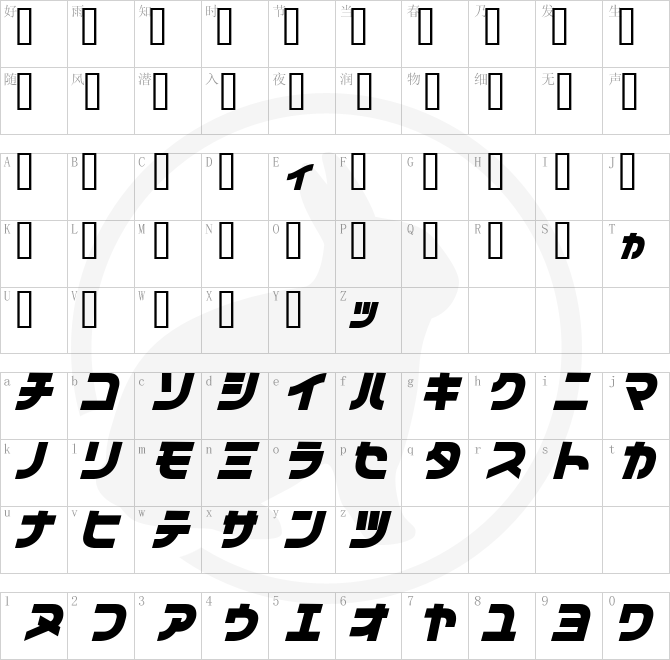
- Font Name:I2Vifam
- Subfamily:Macromedia Fonographer 4.1J I2Vifam
- Full Name:I2Vifam
- PostScript:I2Vifam
I2Vifam.ttf is a very beautiful artistic font, I2Vifam.ttf is widely used in the design and printing of various books and pictures,I2Vifam.ttf has a strong visual impact,I2Vifam.ttf is a commonly used font in newspapers, magazines and books, and is used in posters, e-commerce Poster design, store design, logo design, font design and other fields.I2Vifam.